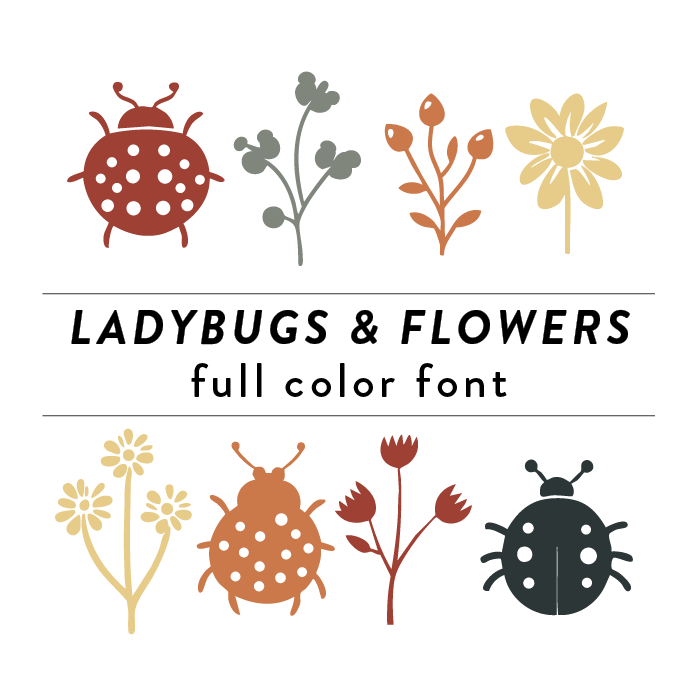
The Ladybugs & Flowers Full Color Font is a whimsical and playful font design that incorporates intricate floral patterns and adorable ladybug motifs. This unique font is perfect for adding a touch of charm and nature-inspired elements to various craft projects, invitations, and designs. The vibrant colors and detailed illustrations make this font stand out and add a fun and cheerful vibe to any creative project.